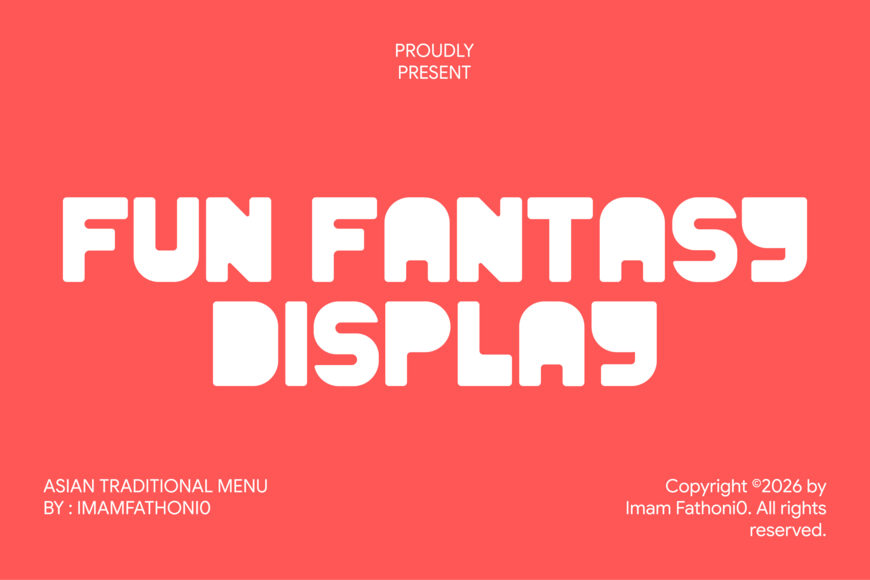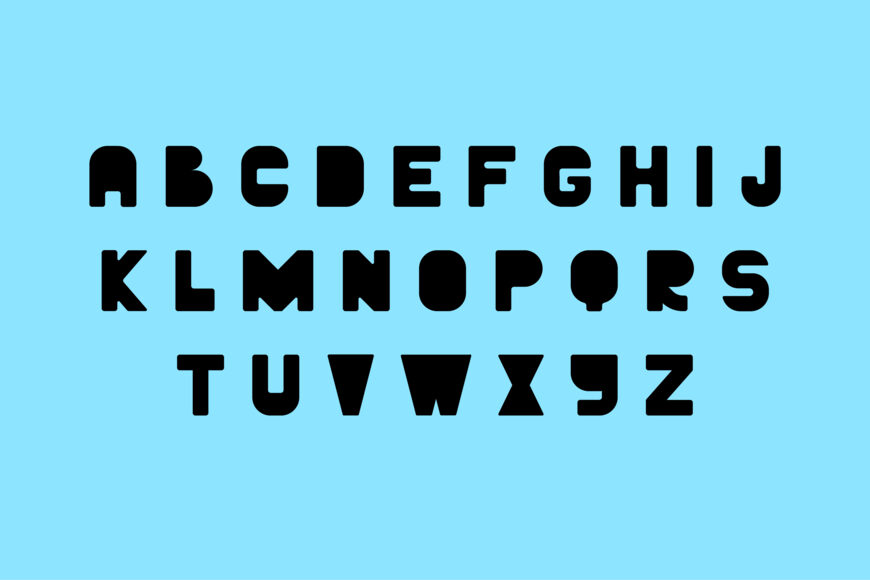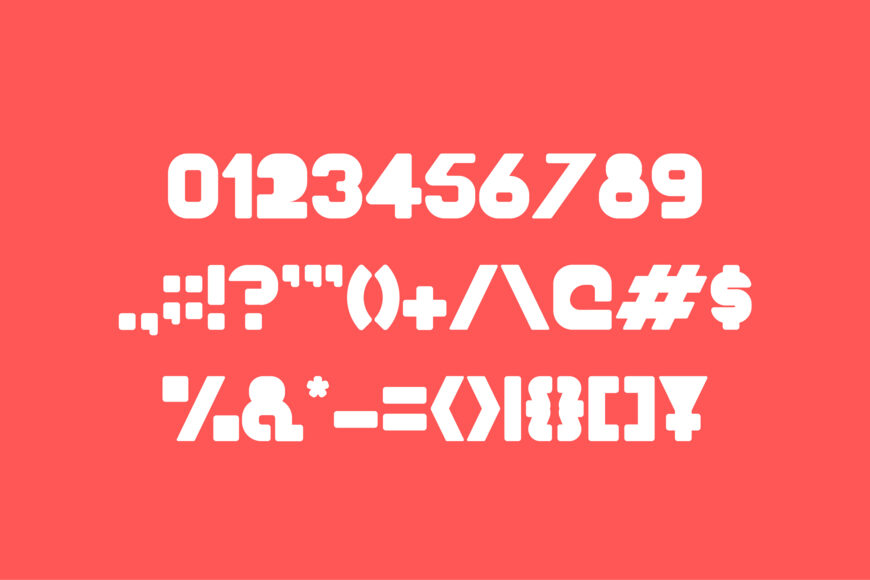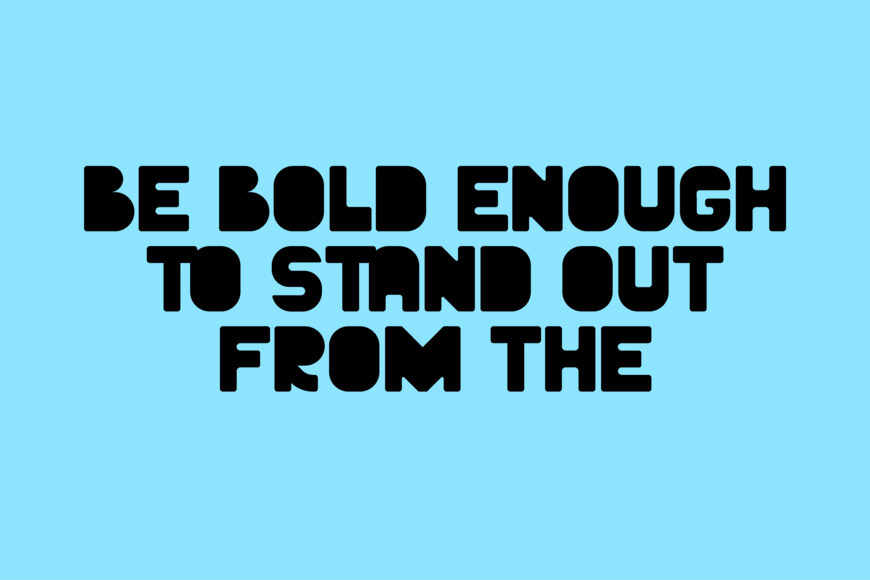
Fun Fantasy Font
Fun Fantasy is a bold and informal display font built for creativity and imagination. With playful letterforms perfect for children and teens, it brings modern energy and lighthearted charm to any design that wants to feel fresh, fun, and expressive.
Perfect for: Kids events, game design, cartoon branding, party invitations, school projects, stickers, posters, and youth-oriented packaging.